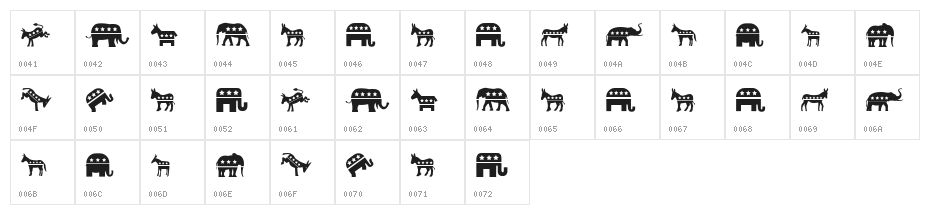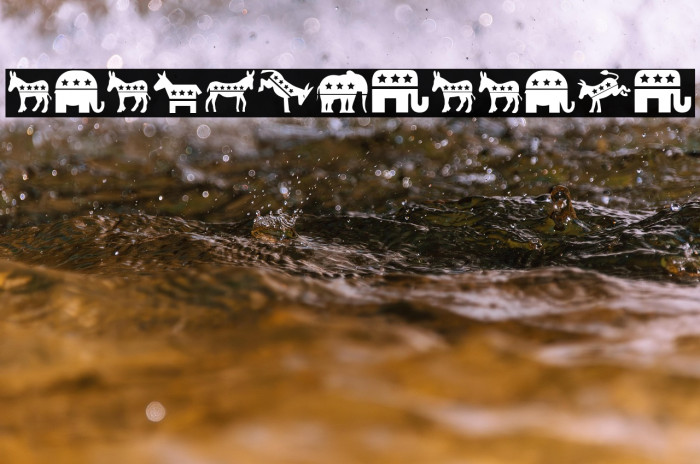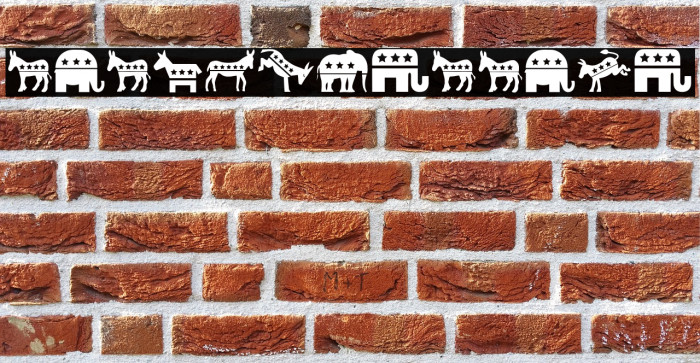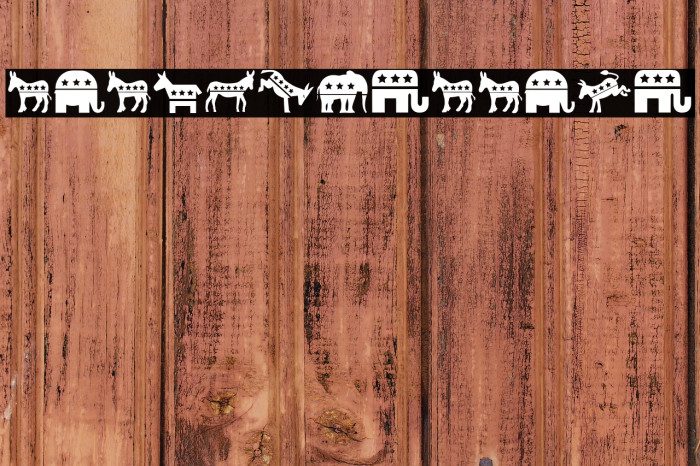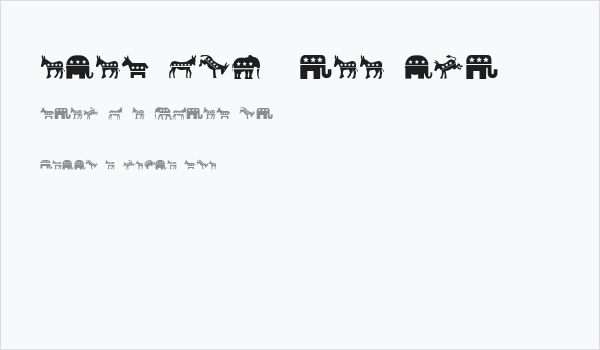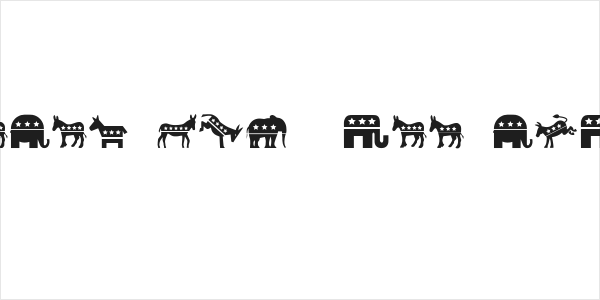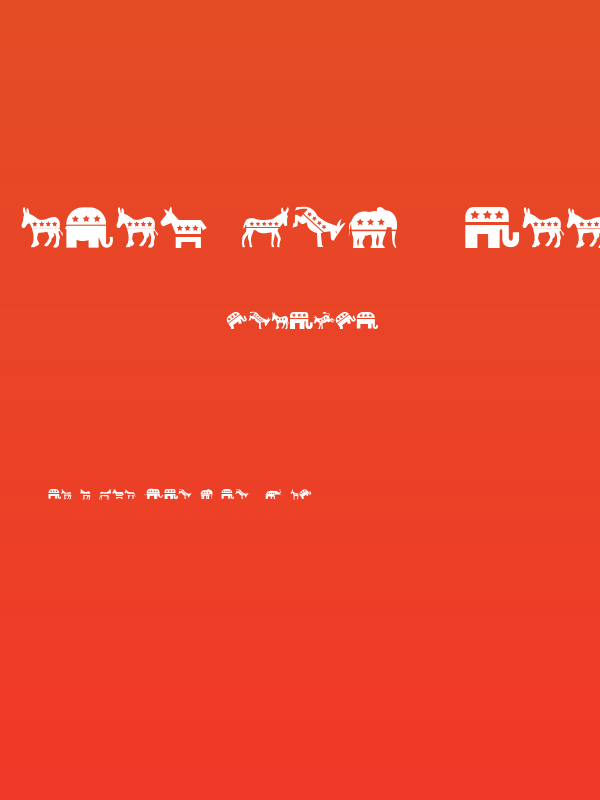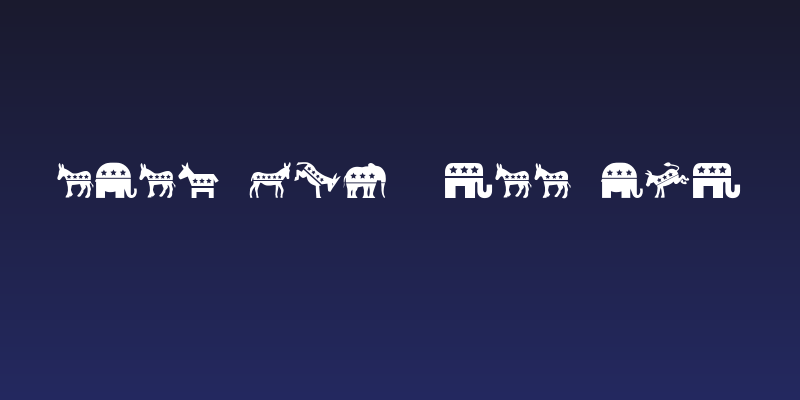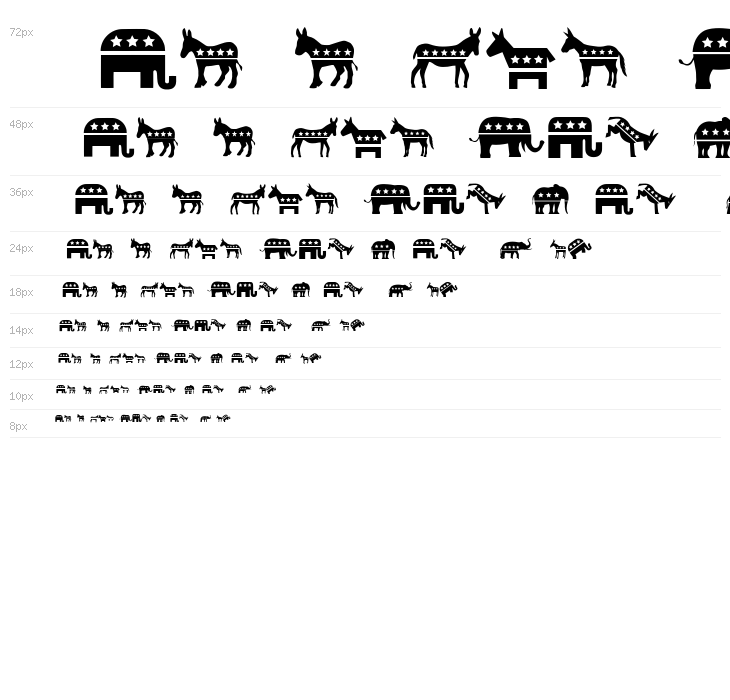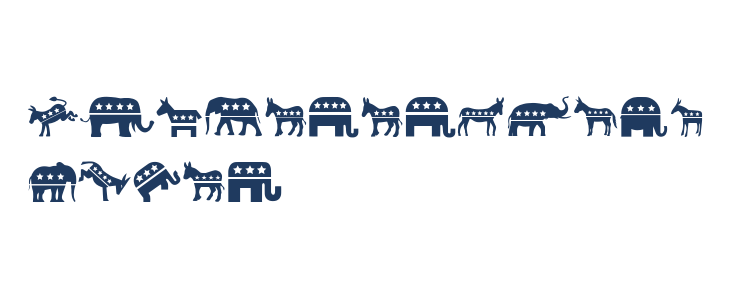
Elections Regular Font
| Caso d'uso | Headlines, Logos, Thematic Displays |
| Progetti proposti | Ideal for political campaign materials, election-themed posters, educational materials about political systems, or any project requiring a playful political theme. |